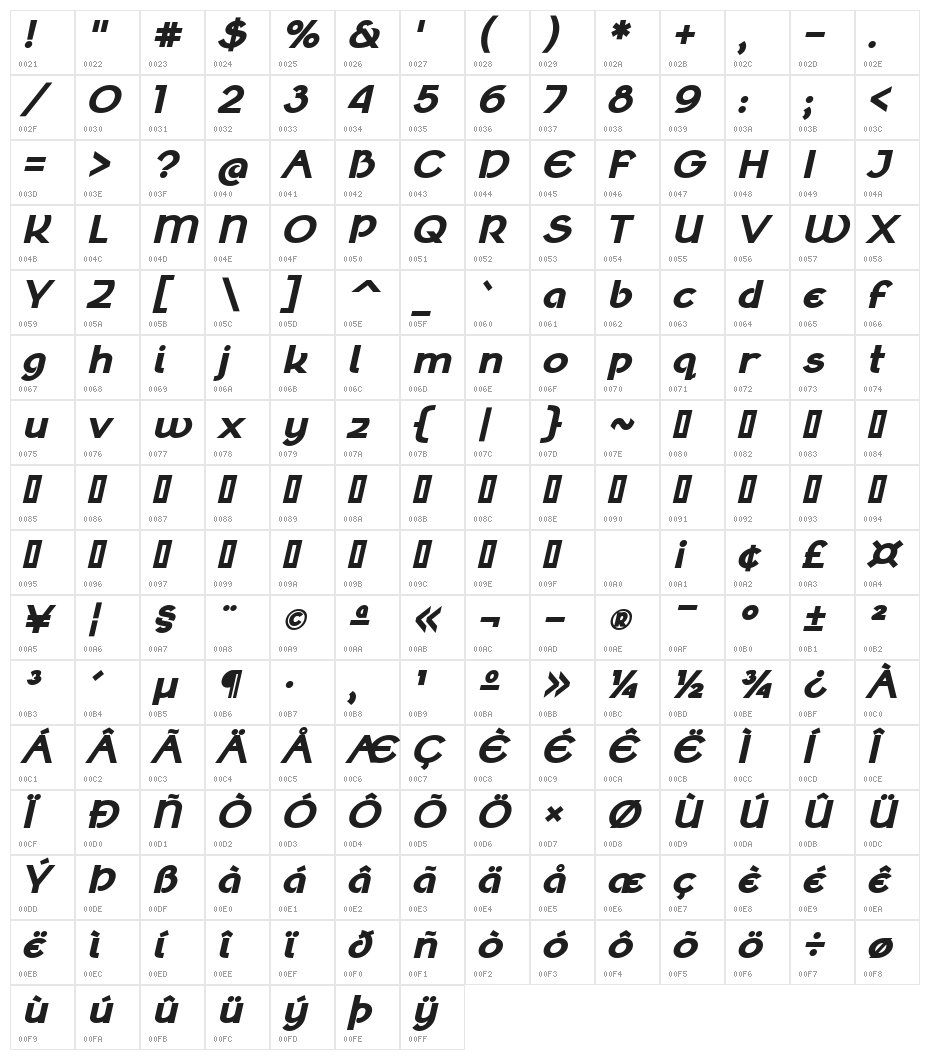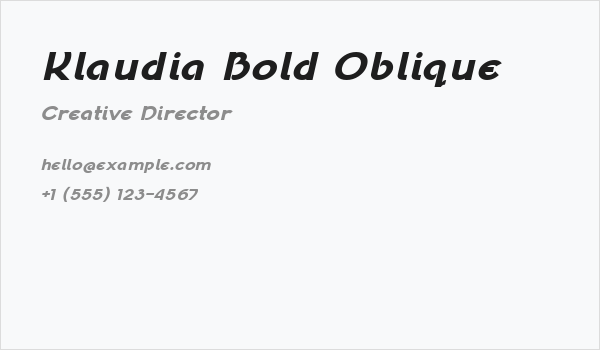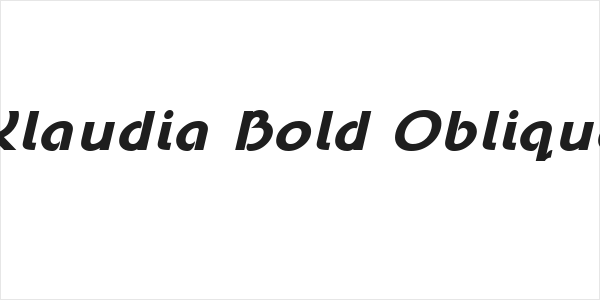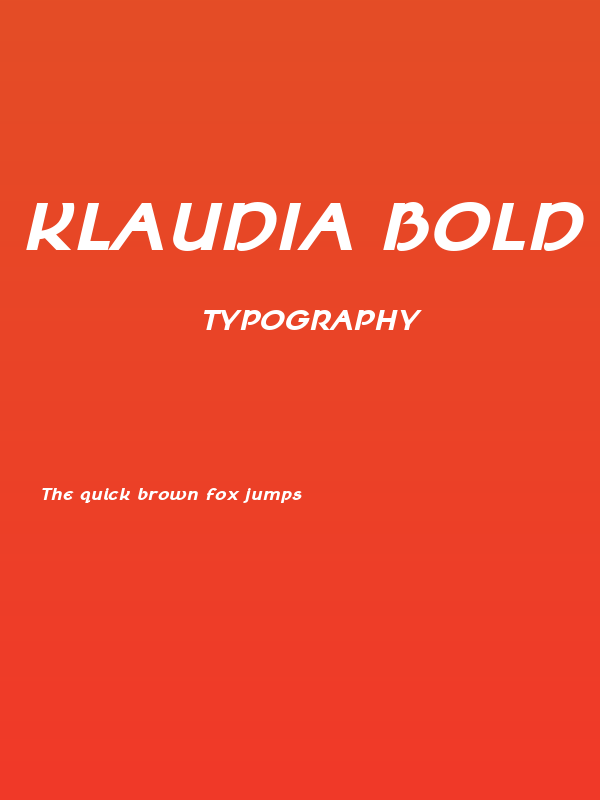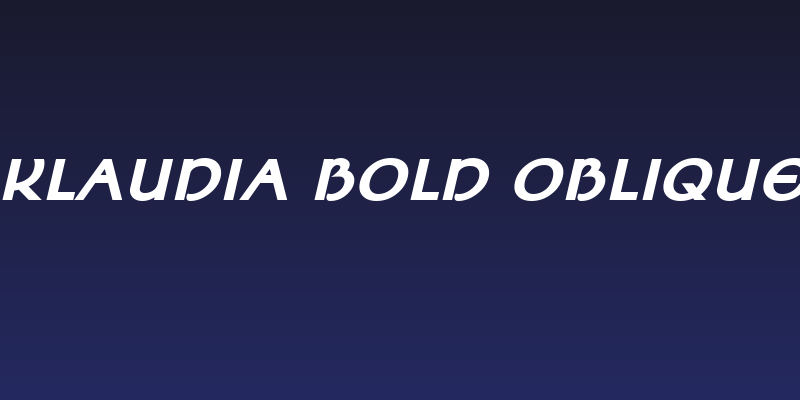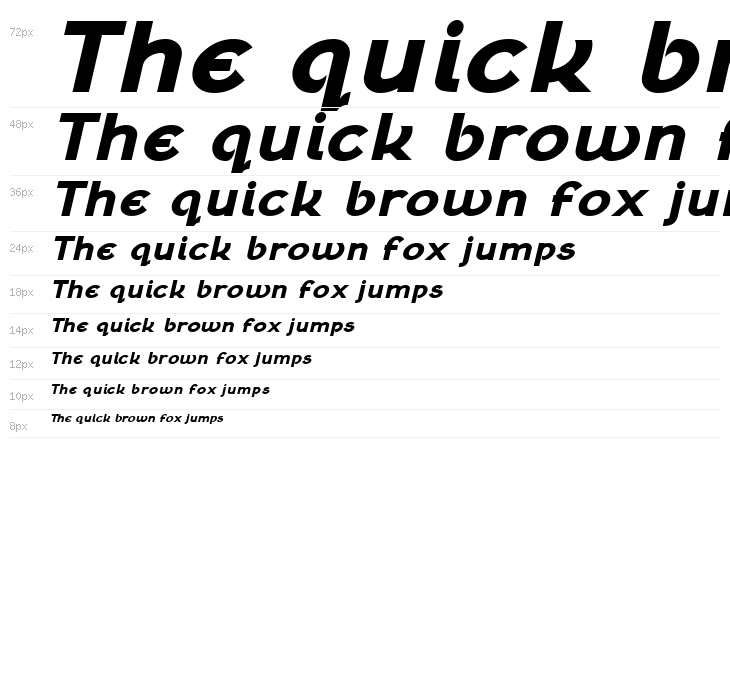
Klaudia Bold Oblique Font
Klaudia Bold Oblique Description
This font features a bold and oblique style, characterized by its strong and dynamic appearance. The letters are slanted, giving a sense of movement and energy. The strokes are thick and consistent, providing a robust and confident look. The uppercase and lowercase letters maintain a uniform style, with rounded edges that soften the overall boldness. The numerals and special characters are designed to match the bold and slanted aesthetic, ensuring a cohesive appearance across all characters. This font is ideal for making a strong visual impact, suitable for headlines and attention-grabbing text.
| Proposed Projects | Ideal for branding, advertising, posters, and any design requiring a strong, impactful font. |